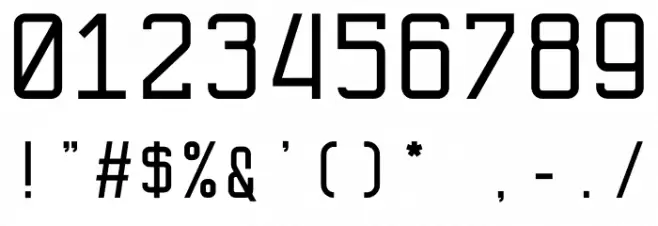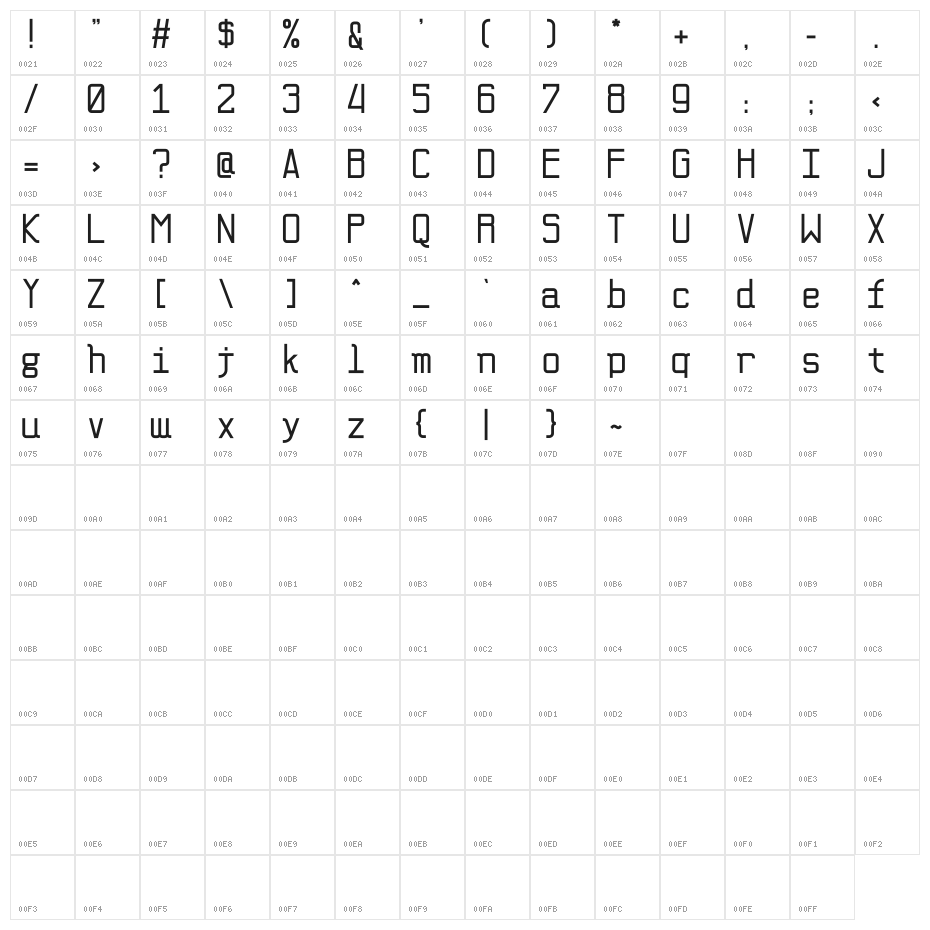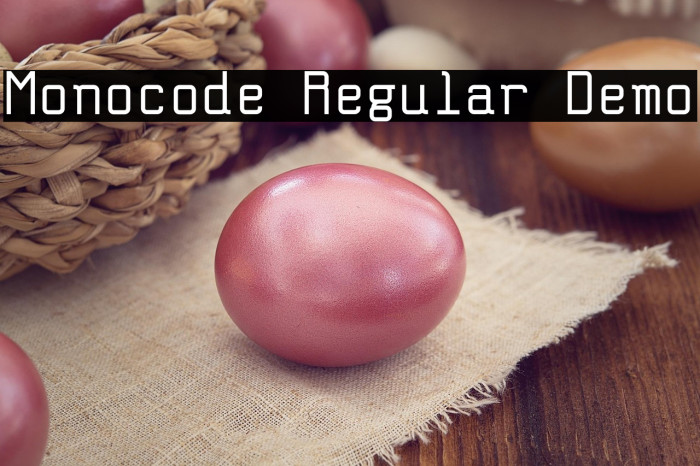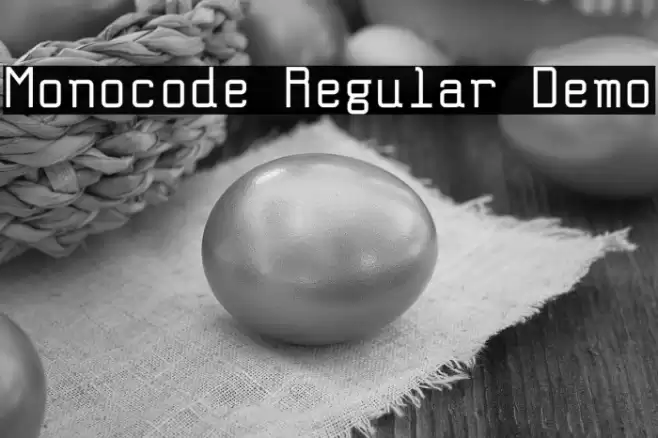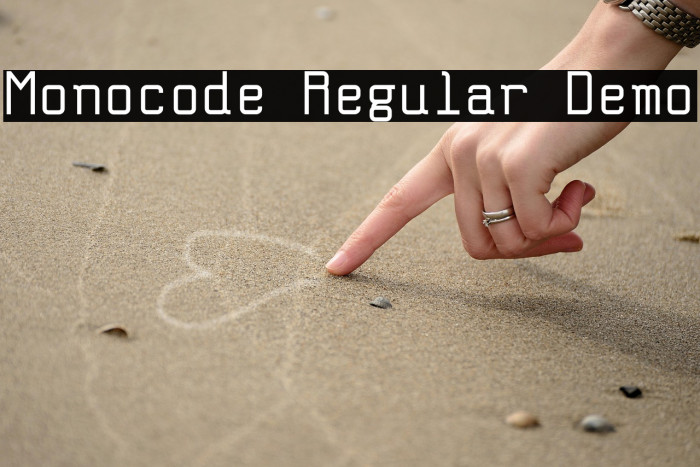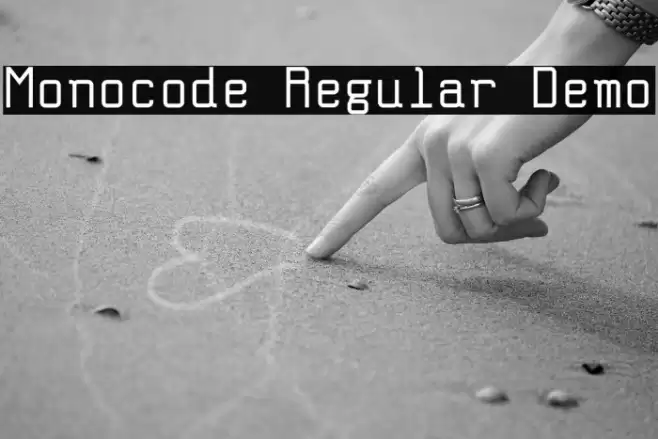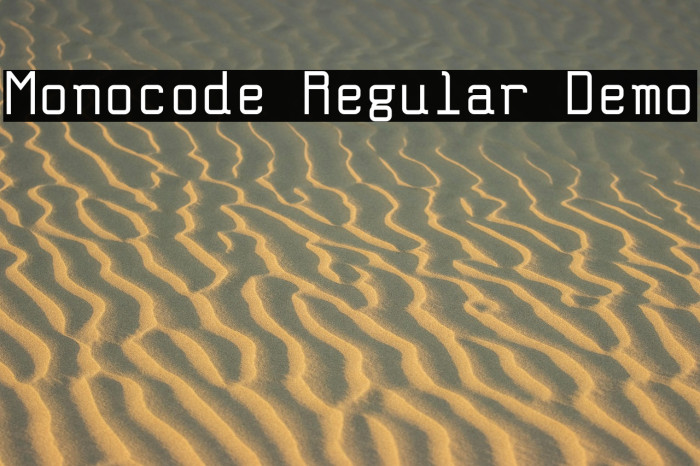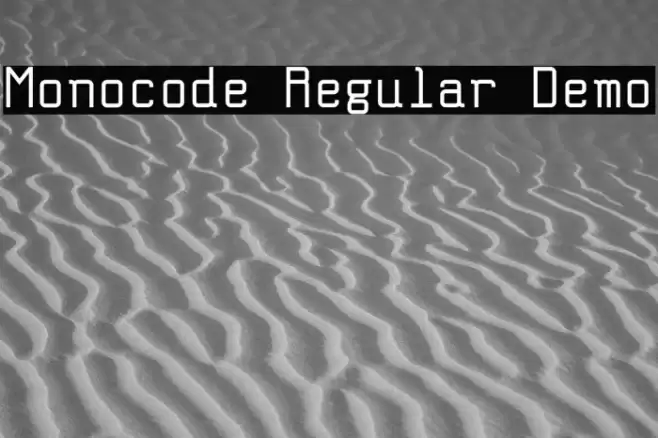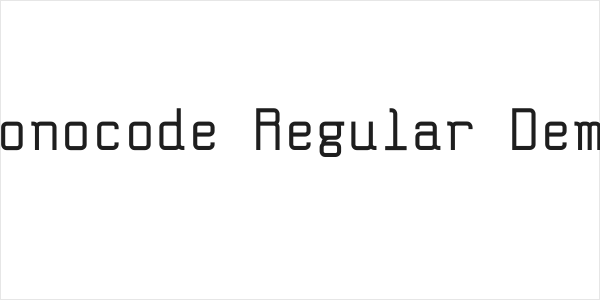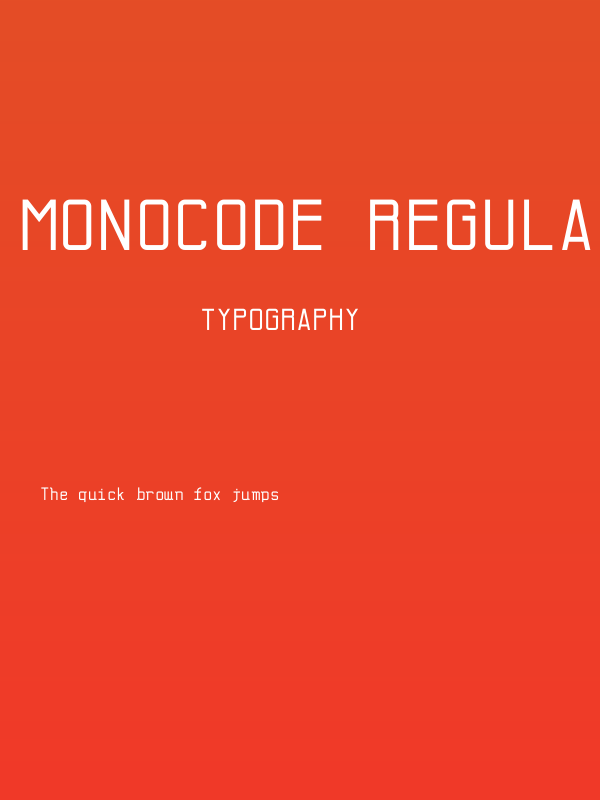
Monocode Regular Demo Font
Monocode Regular Demo Description
This font features a monospaced design with a clean and modern aesthetic. Each character is evenly spaced, providing a uniform appearance that is ideal for coding and technical documents. The uppercase letters are bold and distinct, while the lowercase letters maintain a consistent height and width, ensuring readability. The numerals are clear and straightforward, making them suitable for data presentation. Special characters are well-defined, adding to the font's versatility. The overall style is minimalistic, with a focus on functionality and clarity.
| Use Case | Coding, Technical documents, Data visualization |
| Proposed Projects | Perfect for programming environments, technical documentation, and data visualization. |